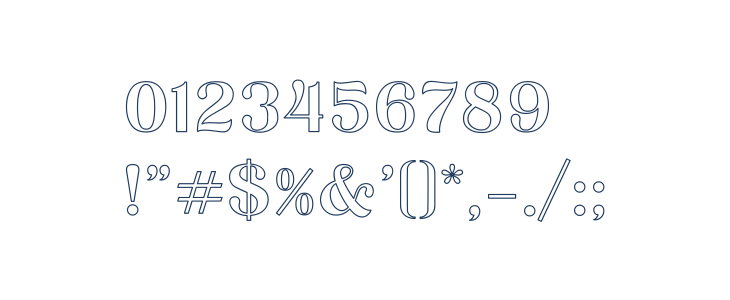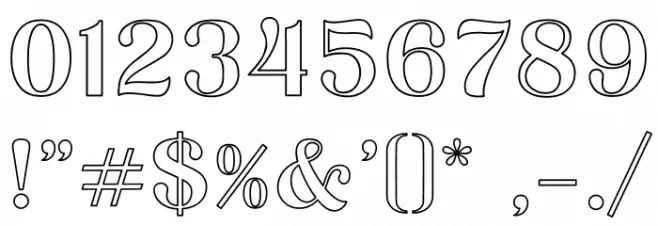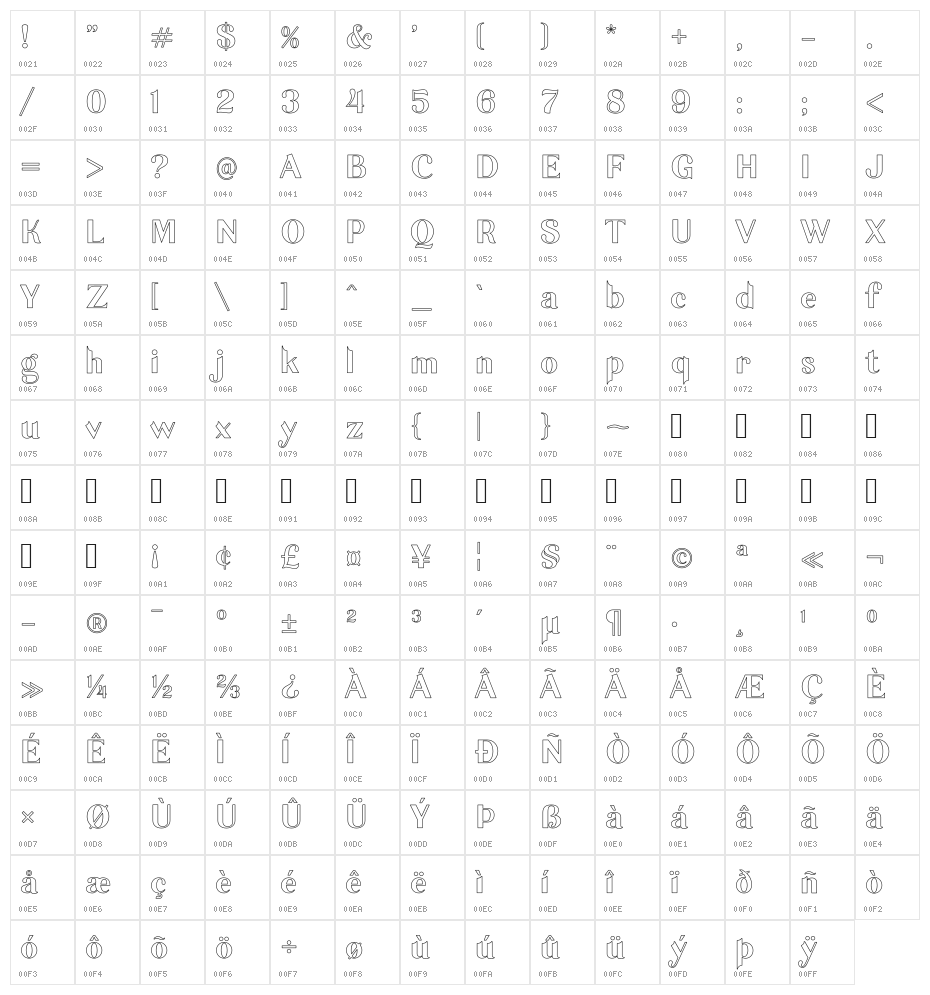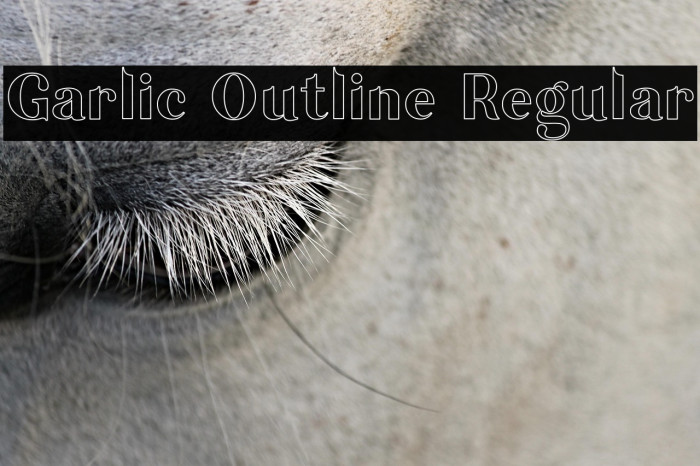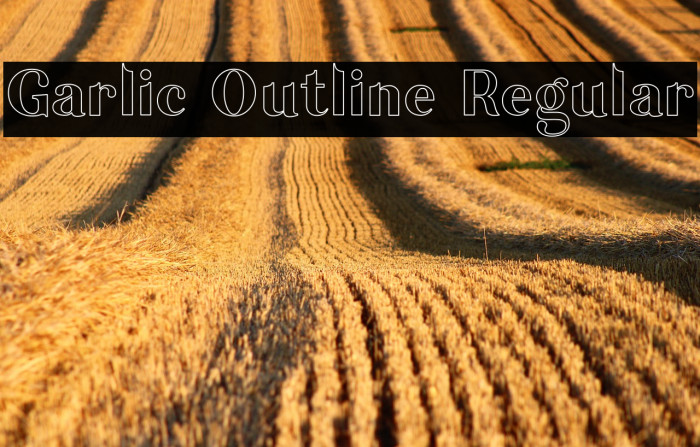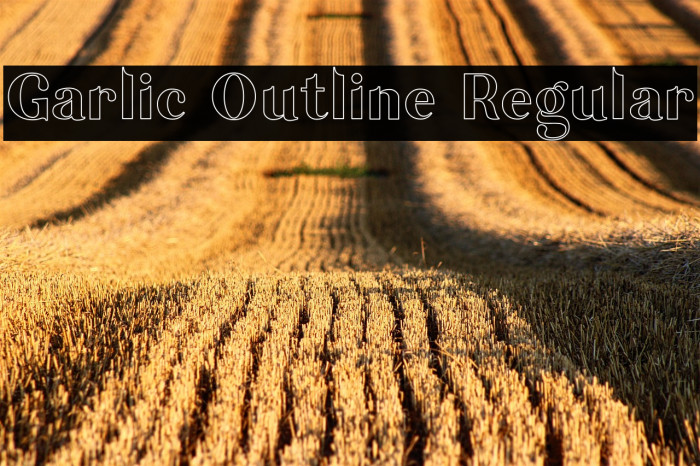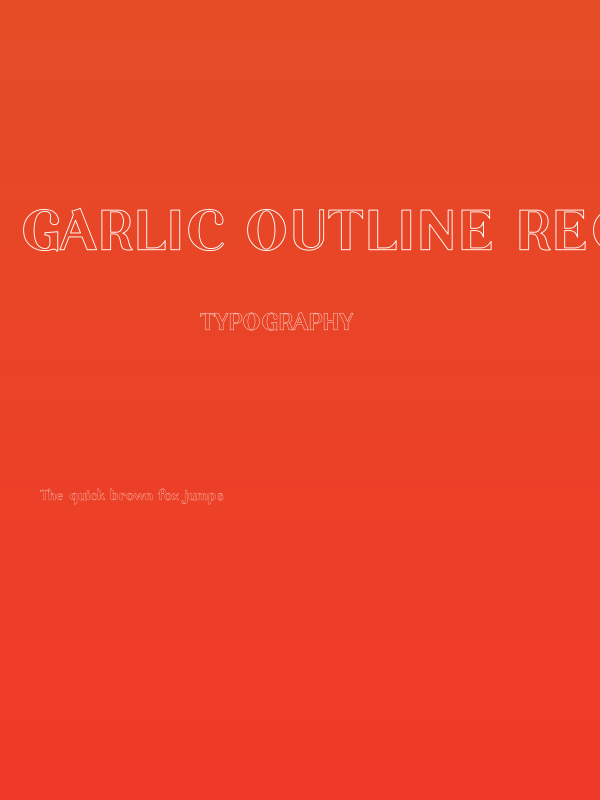
Garlic Outline Regular Font
Garlic Outline Regular Description
This font features a unique outline style that gives it a distinct and modern appearance. The characters are well-defined with a consistent stroke width, creating a clean and structured look. The uppercase and lowercase letters maintain a uniform height, providing a balanced and harmonious design. The numerals and special characters are crafted with the same attention to detail, ensuring readability and aesthetic appeal. The overall style is versatile, making it suitable for various design applications where a contemporary and eye-catching font is desired.
| Proposed Projects | Ideal for branding, posters, headlines, and digital graphics where a modern and distinctive look is needed. |